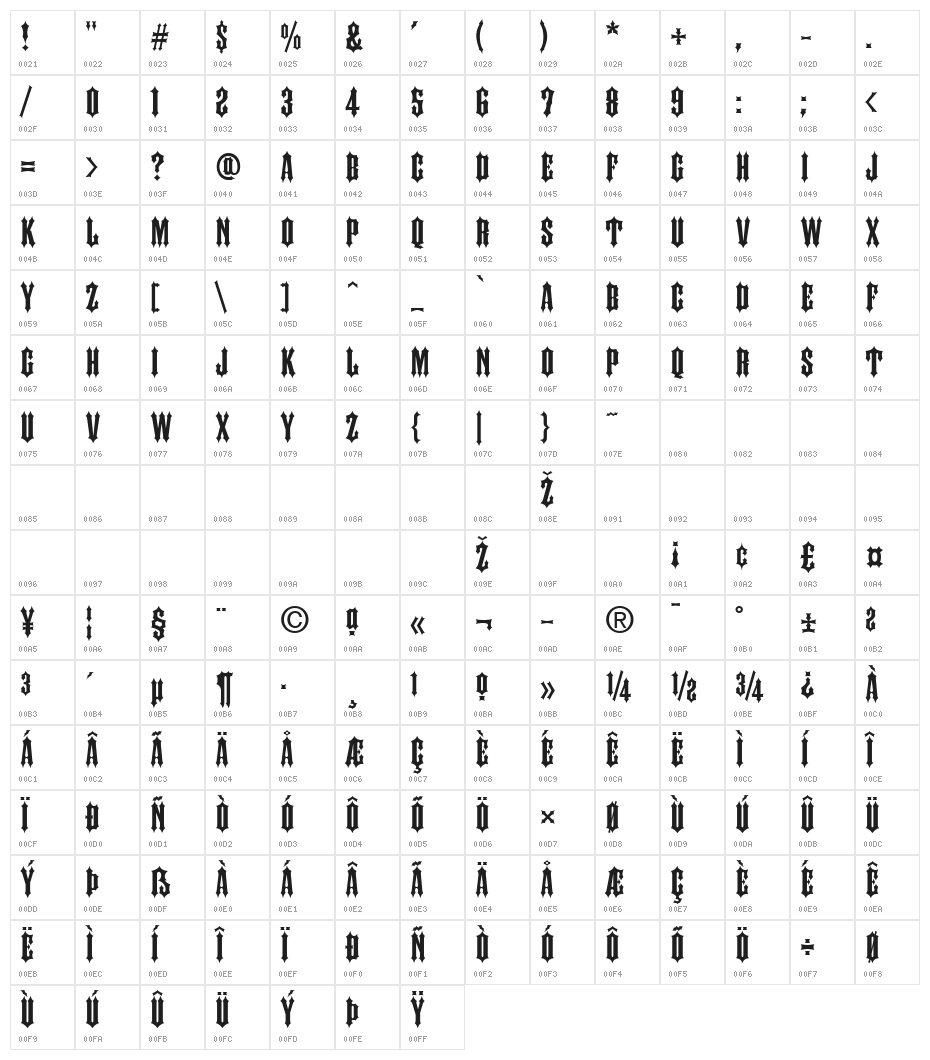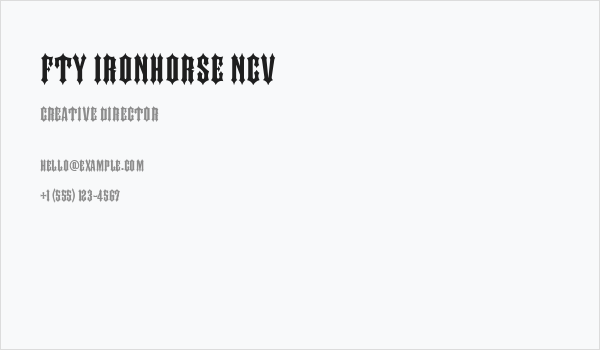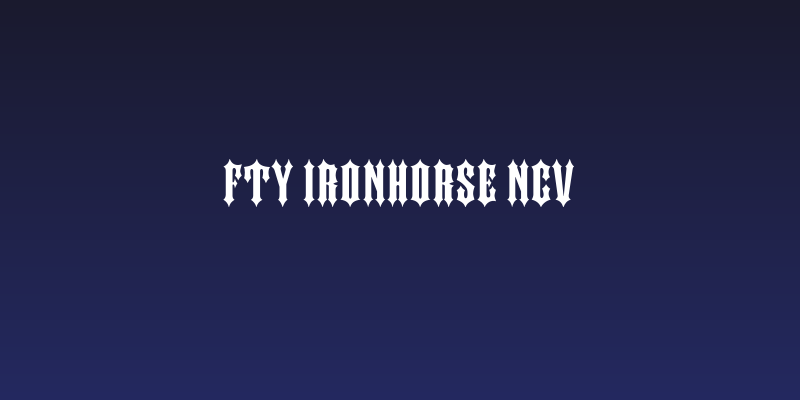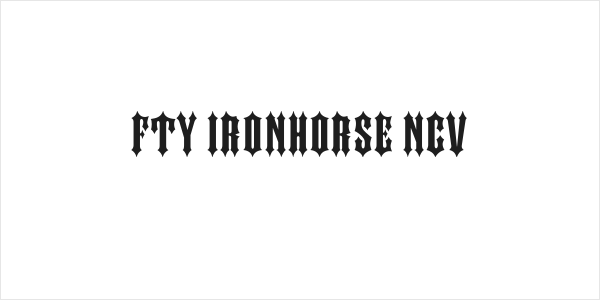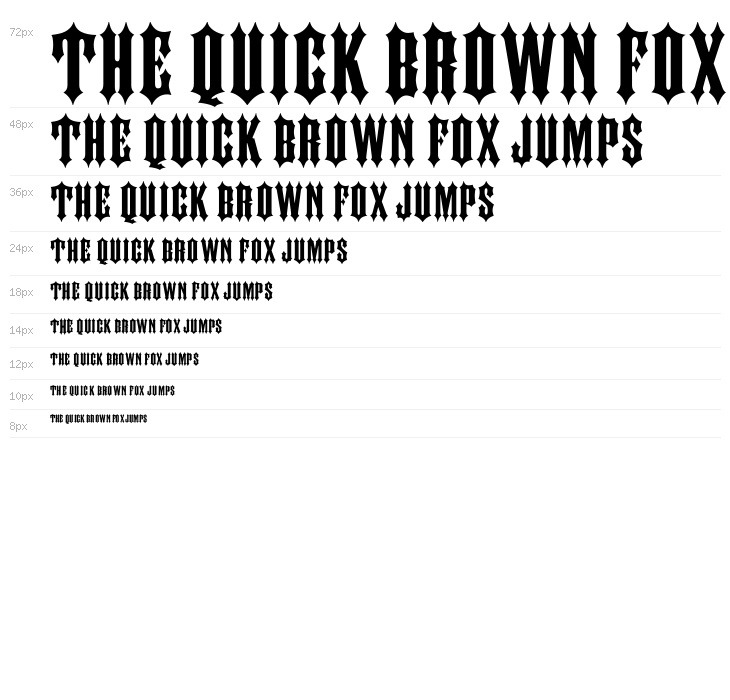
FTY IRONHORSE NCV Font
FTY IRONHORSE NCV Description
This font is a bold and striking typeface with a strong presence, characterized by its sharp, angular edges and intricate detailing. The uppercase letters are particularly prominent, featuring a gothic-inspired design that evokes a sense of strength and tradition. The lowercase letters maintain the same boldness, ensuring consistency across the typeface. Numbers and special characters are equally robust, making them suitable for a variety of uses. The overall design is reminiscent of vintage signage or classic tattoo styles, offering a unique blend of historical and modern aesthetics.
| Proposed Projects | Ideal for projects requiring a vintage or gothic aesthetic, such as tattoo designs, posters, branding for alternative or edgy products, and themed event invitations. |